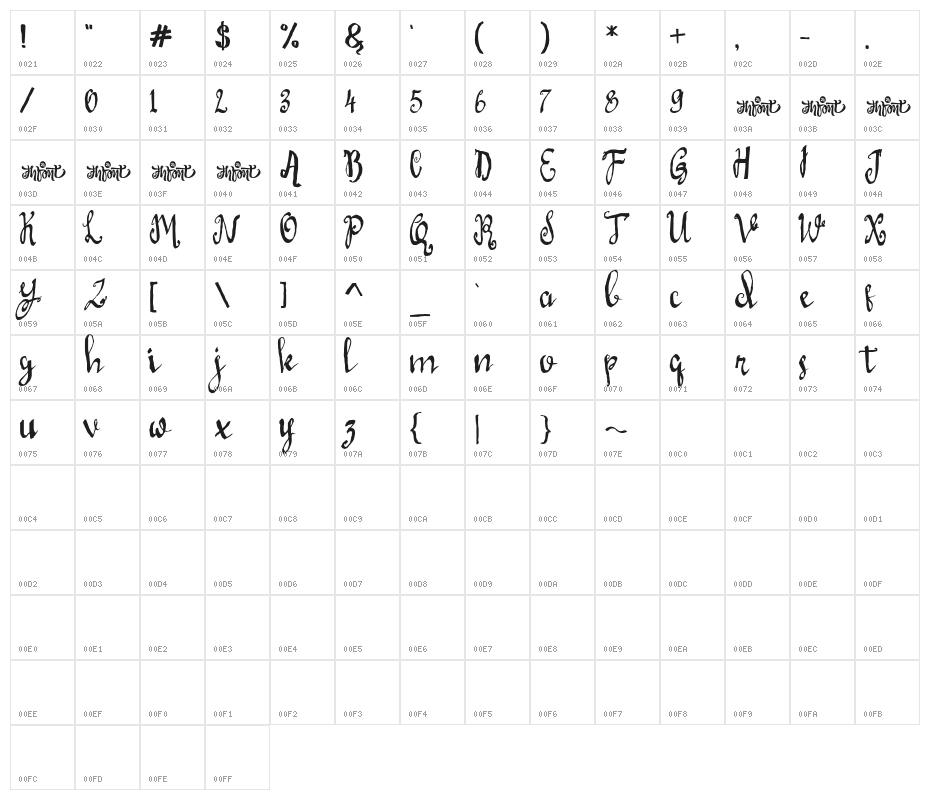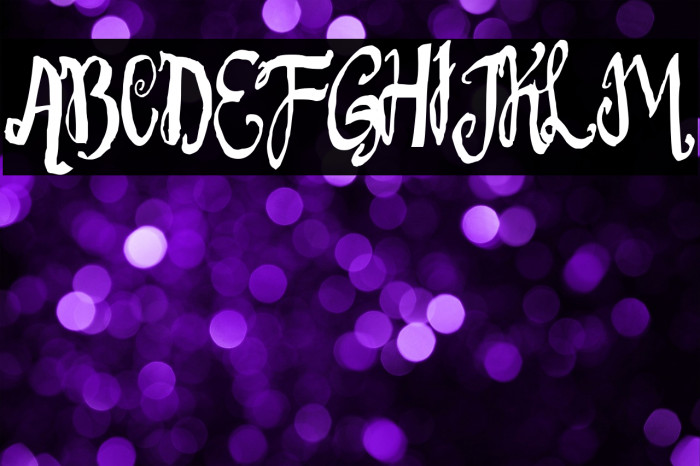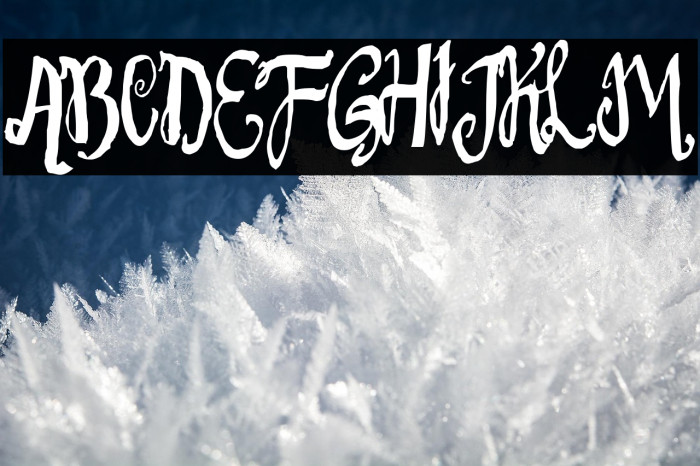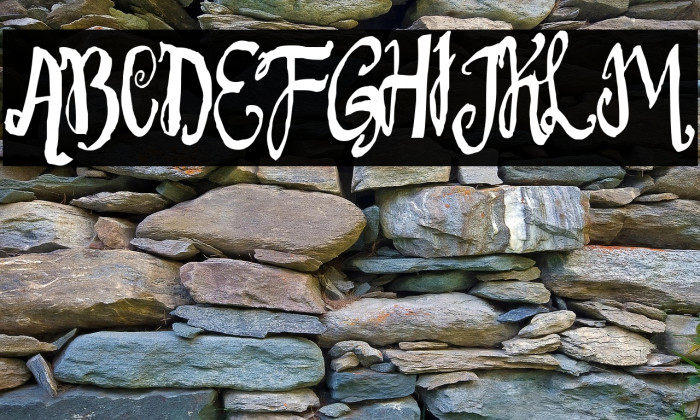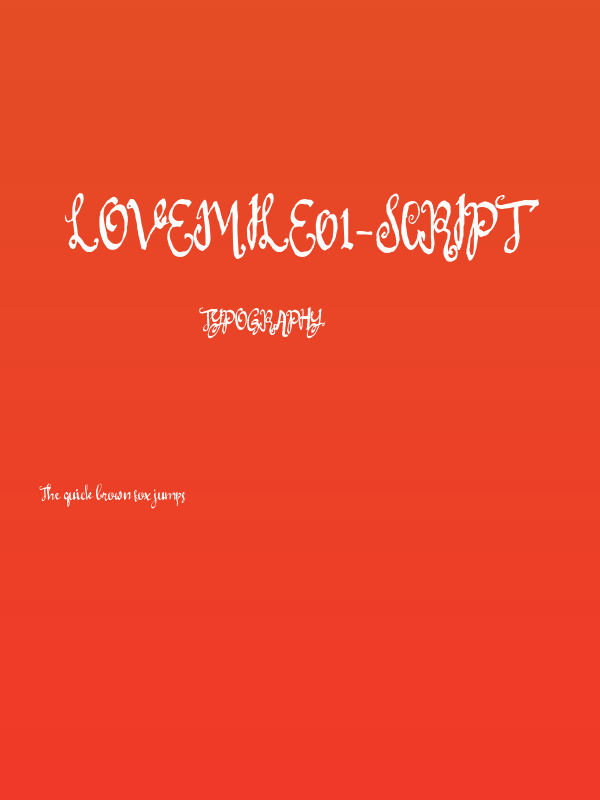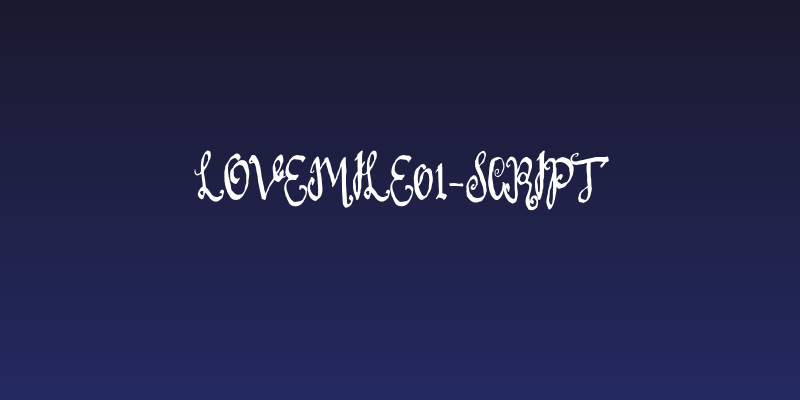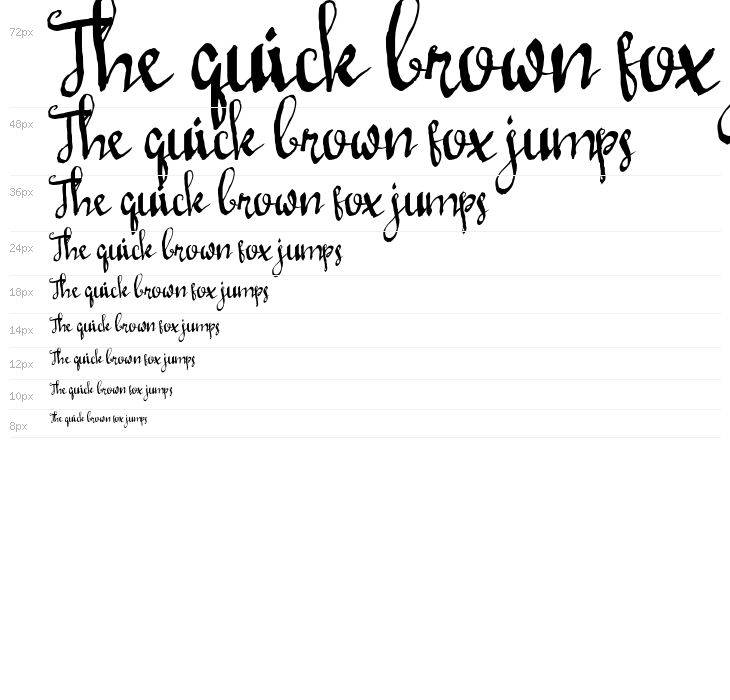
LoveMile01-Script Font
This font exhibits a dynamic and expressive script style, characterized by its flowing and interconnected letterforms. The uppercase letters are bold and ornate, with exaggerated loops and flourishes that give a sense of movement and elegance. The lowercase letters maintain a consistent style, with smooth curves and a slightly irregular baseline that adds to the handwritten feel. The numbers and special characters are designed to match the overall aesthetic, with a playful yet sophisticated appearance. This font is ideal for projects that require a personal touch or a sense of creativity and flair.
| Use Case | Logos, Invitations, Creative Design |
| Proposed Projects | Ideal for wedding invitations, greeting cards, branding, and creative design projects. |